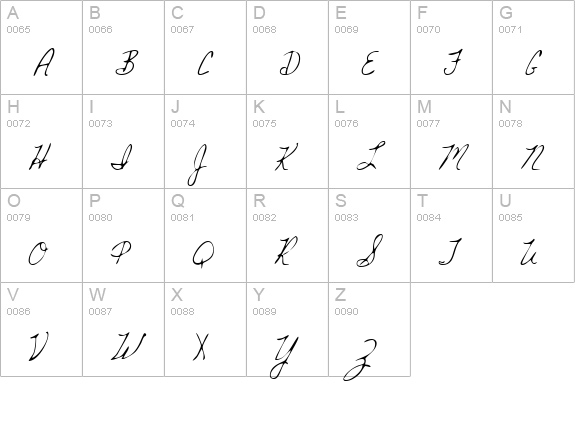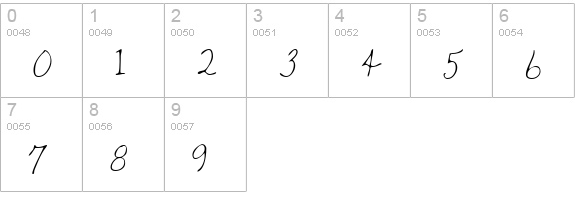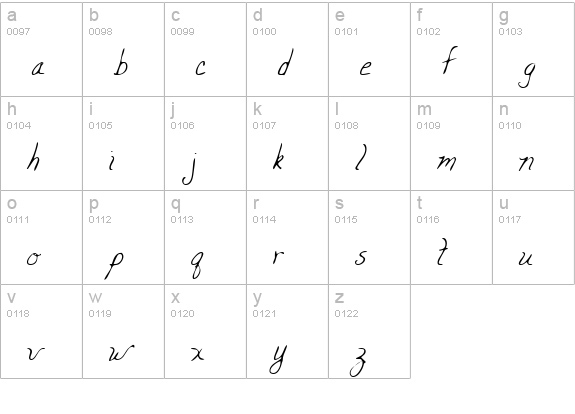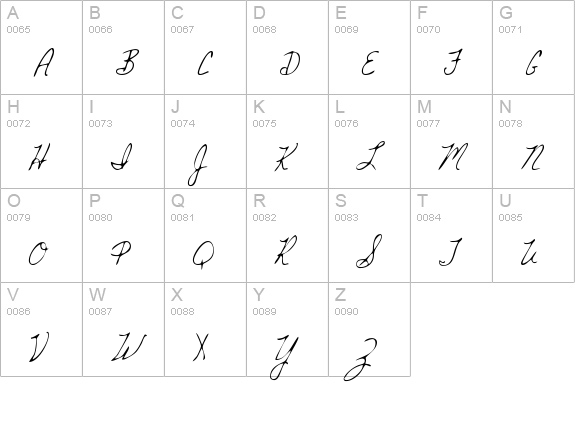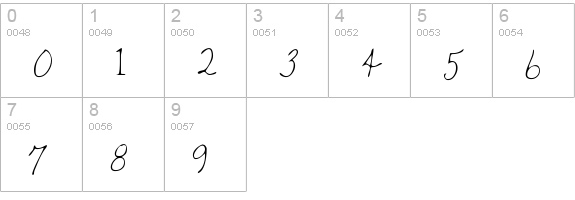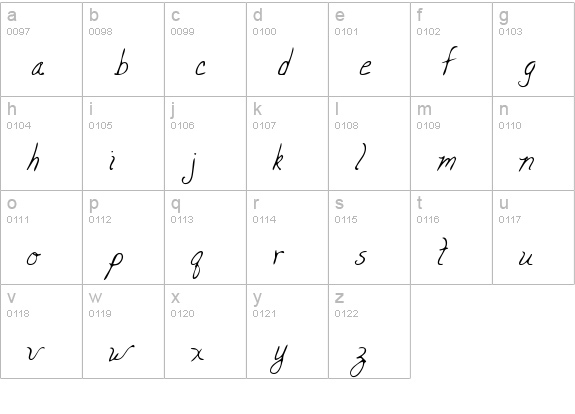
CarolinesHand Regular Font Details
CarolinesHand Regular is the standard, neutral variant in the CarolinesHand typeface family \xE2\x80\x94 well suited to general body text, paragraphs, and standard typographic work.
Introducing CarolinesHand Regular font, a charming and versatile typeface perfect for adding a touch of elegance to your projects. This delightful font features smooth curves and a hand-drawn aesthetic, making it ideal for invitations, greeting cards, branding, and more. CarolinesHand Regular font is available for free download at FontsMarket.com, where you can easily access this beautiful typeface to enhance your designs. Whether you're looking to create a romantic wedding invitation or a whimsical logo, CarolinesHand Regular font offers a unique and stylish solution. Don't miss out on this opportunity to elevate your design projects with this lovely font. Download it today and let your creativity shine!